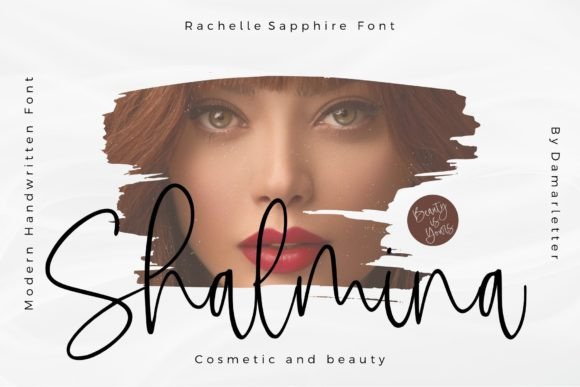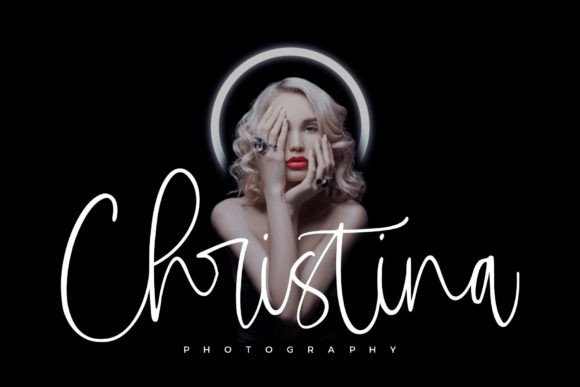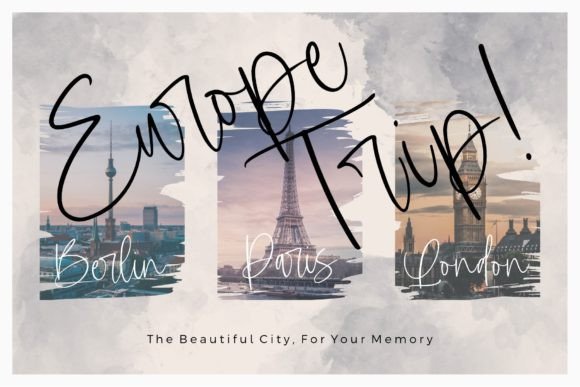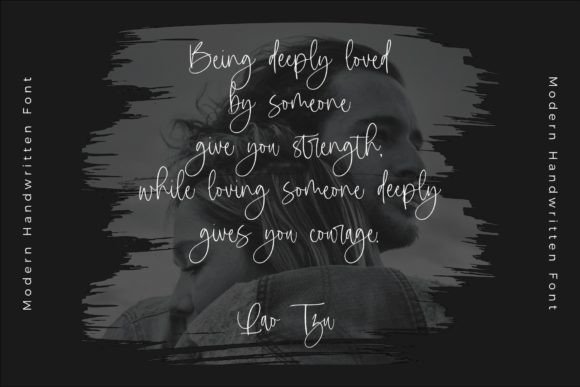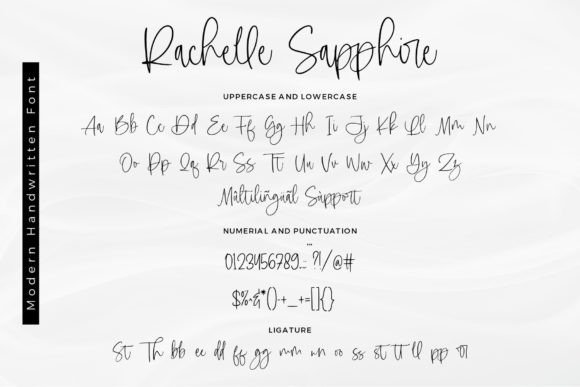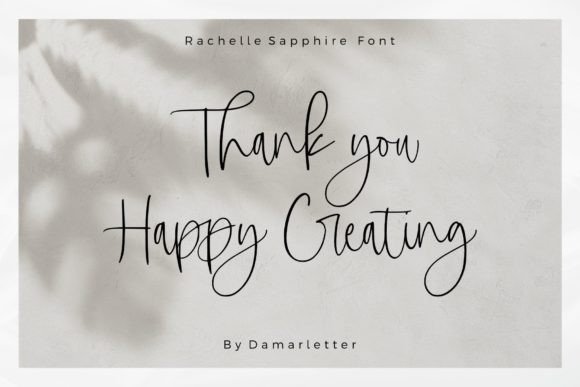
Introduction to Rachelle Sapphire Font
Rachelle Sapphire is a chic, refined script font.
Its stylish ligatures make this font the perfect match for any project such as logos, wedding designs, social media posts, advertisements, product packaging, product designs, labels, invitations, or anything that needs a handwritten touch This font is PUA encoded which means you can access all of the amazing glyphs and ligatures with ease.
Key Features of Rachelle Sapphire Font